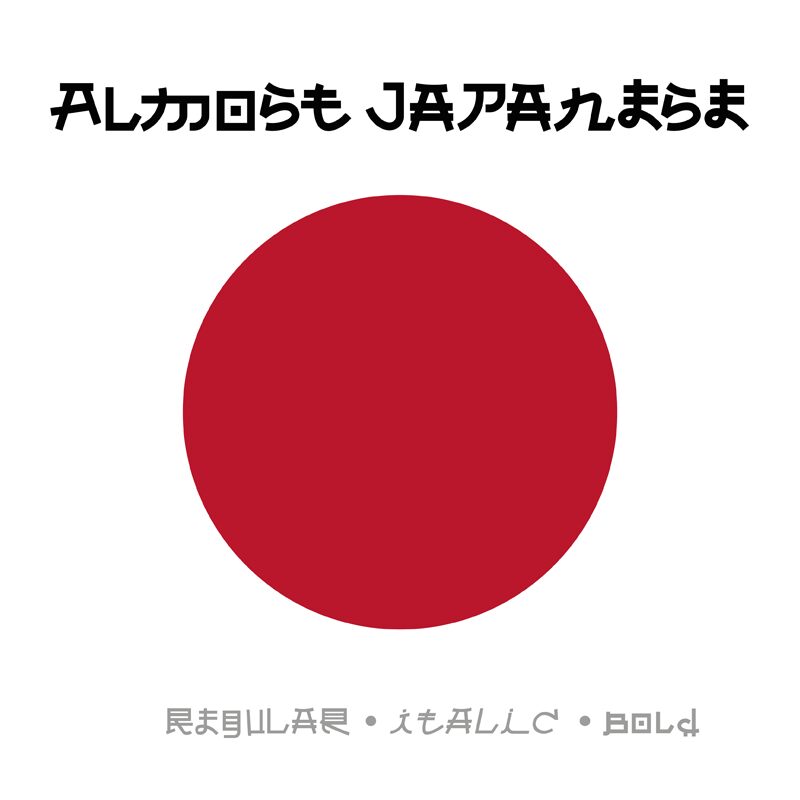
Almost Japanese Bold
Almost Japanese Bold font by Galdino Otten Fonts is a free Japanese‑style display font built for loud, theme-forward headlines. Its chunky, squared strokes and tight rhythm snap together like tiles, giving instant East‑Asia‑inspired flair without getting fussy. Letters sit close and heavy, reading as a unified graphic texture—great when you need impact at a glance.
Using Almost Japanese Bold, titles and logos for street-food pop-ups, retro arcade posters, martial‑arts movie nights, event flyers, YouTube thumbnails, and sticker packs all gain punchy, high-contrast presence. This free font shines at large sizes; keep body text in a plain sans for clarity. Try generous tracking at XXL for a crisp, poster-ready grid.